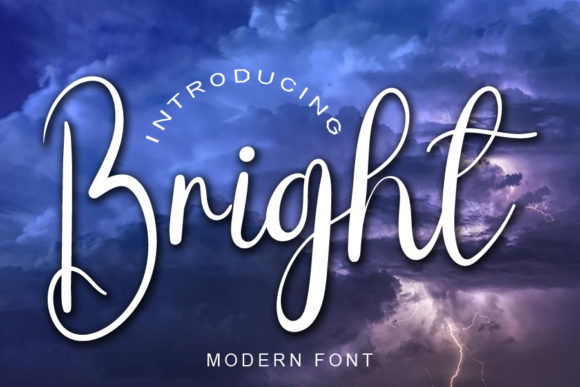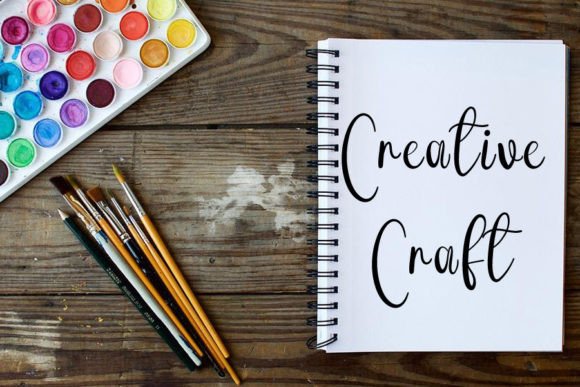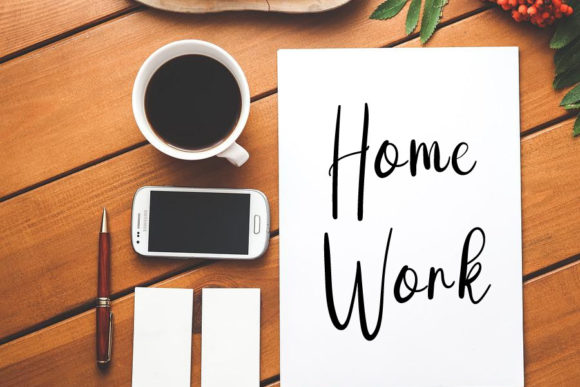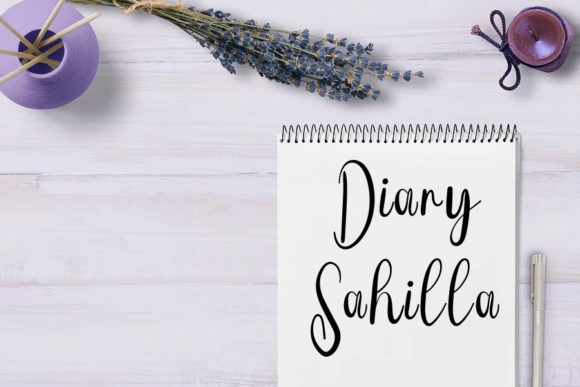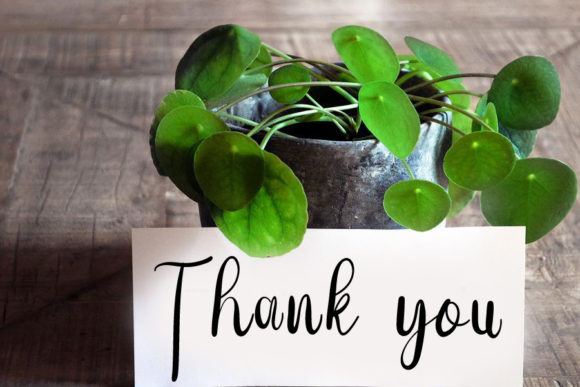
Bright Font
About Bright Font
“Bright This”: Fresh, Beautiful, and Progressive Font for Your Designs
Introducing “Bright This,” a font crafted to bring freshness and beauty to your creative endeavors. Whether you’re working on YouTube banners, cover logo mockups, wedding invitations, ID cards, flyers, crafts, or any design purpose, “Bright This” is here to add a touch of simplicity and uniqueness. Incorporating this font not only enhances your designs but also contributes to the progress and development of your business.
The standout features of “Bright This” lie in its freshness and beauty. The font radiates vibrancy and elegance, making it a versatile choice for a variety of design purposes. Whether you’re creating visually appealing YouTube banners or designing unique wedding invitations, “Bright This” becomes the essential element that adds a fresh and beautiful touch to your creations.
Imagine using “Bright This” for cover logo mockups where the font’s simplicity enhances the overall branding and identity. In ID cards, the font adds a touch of elegance and uniqueness, helping your business stand out. Its versatility shines through in flyers and crafts, where the font contributes to the visual appeal and creativity of your promotional materials.
By selecting “Bright This” for your designs, you’re not just choosing a font; you’re making an investment in a design tool that has the potential to progress and develop your business. The font’s simplicity ensures readability, while its uniqueness sets your designs apart, leaving a lasting impression on your audience.
In conclusion, “Bright This” is more than just a font; it’s a design asset that brings freshness and beauty to your projects. Whether you’re working on YouTube banners, cover logo mockups, wedding invitations, ID cards, flyers, crafts, or any other context, let “Bright This” be the font that contributes to the progress and development of your business. Explore its versatility, embrace its simplicity, and watch as it transforms your designs into visually appealing and uniquely memorable creations.